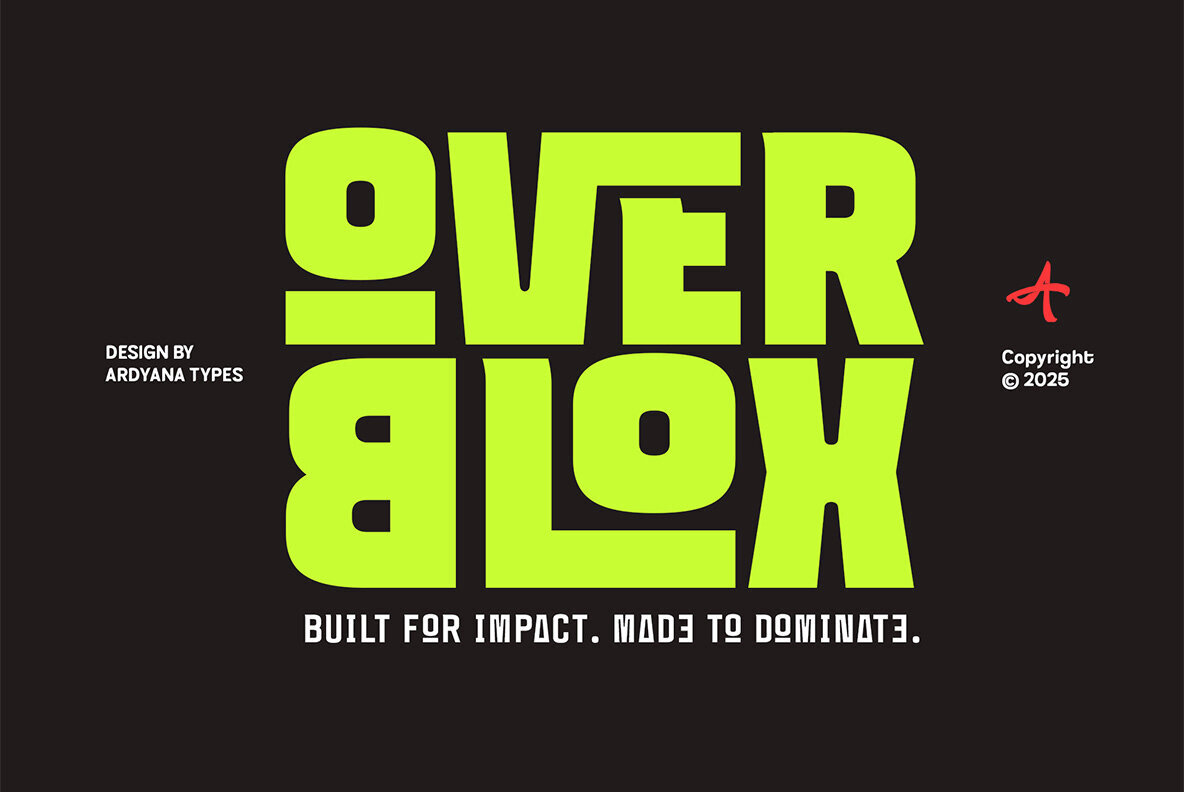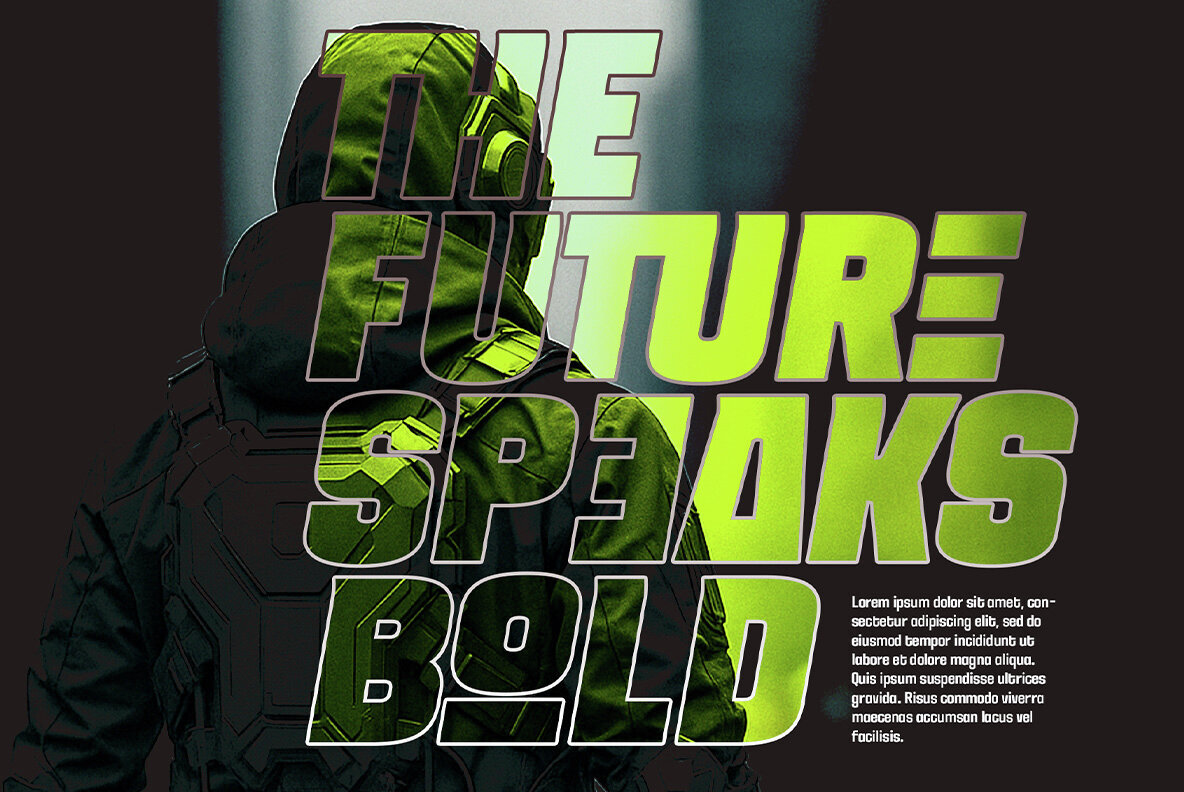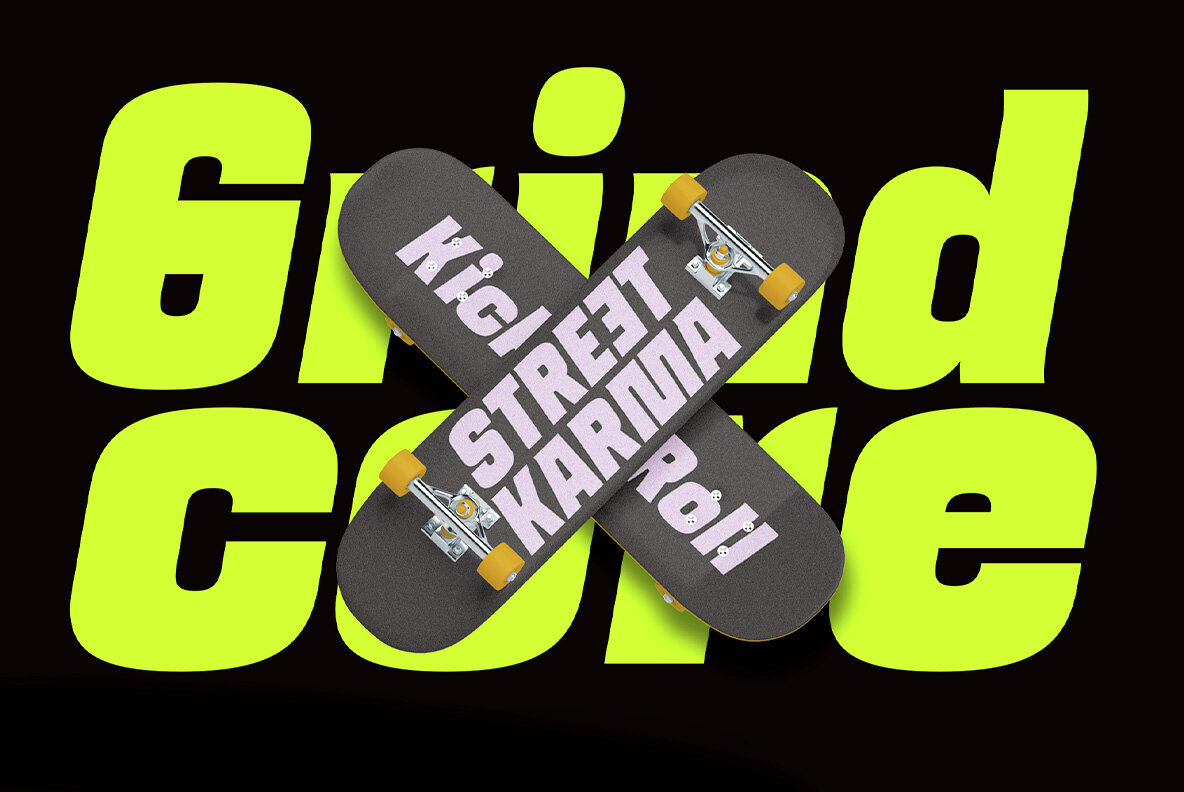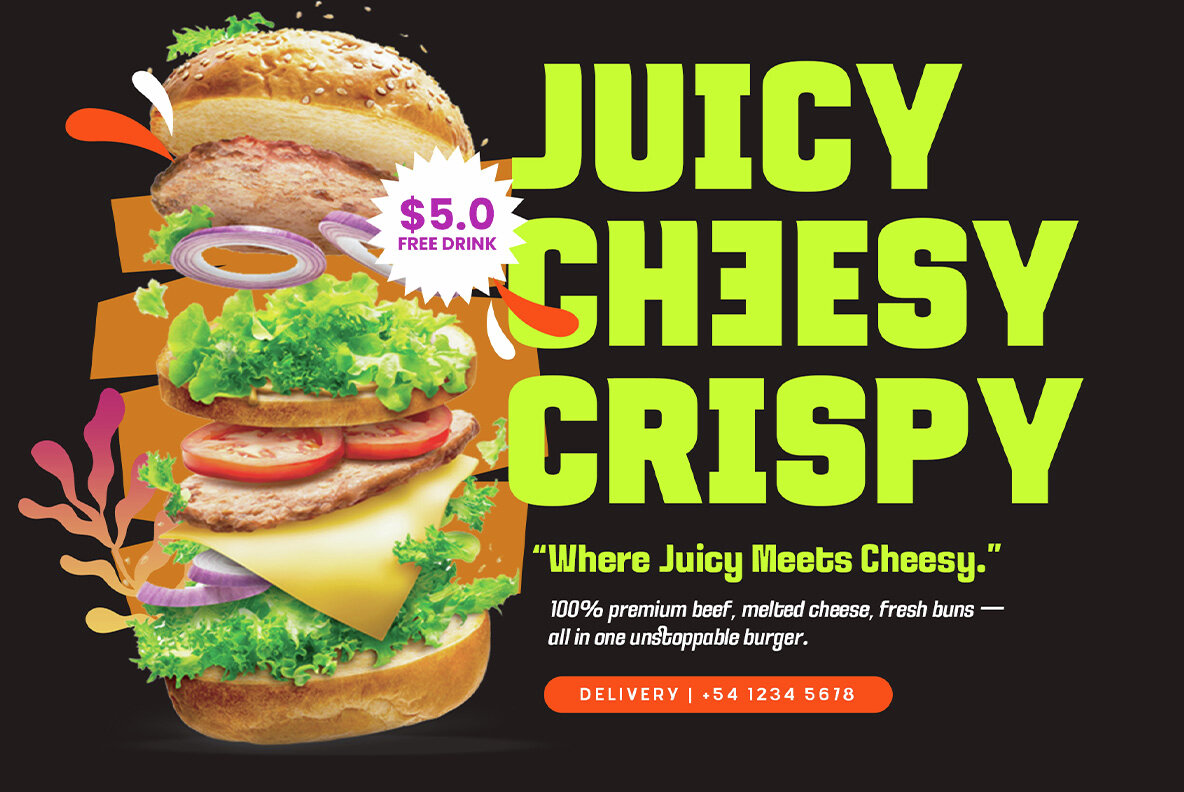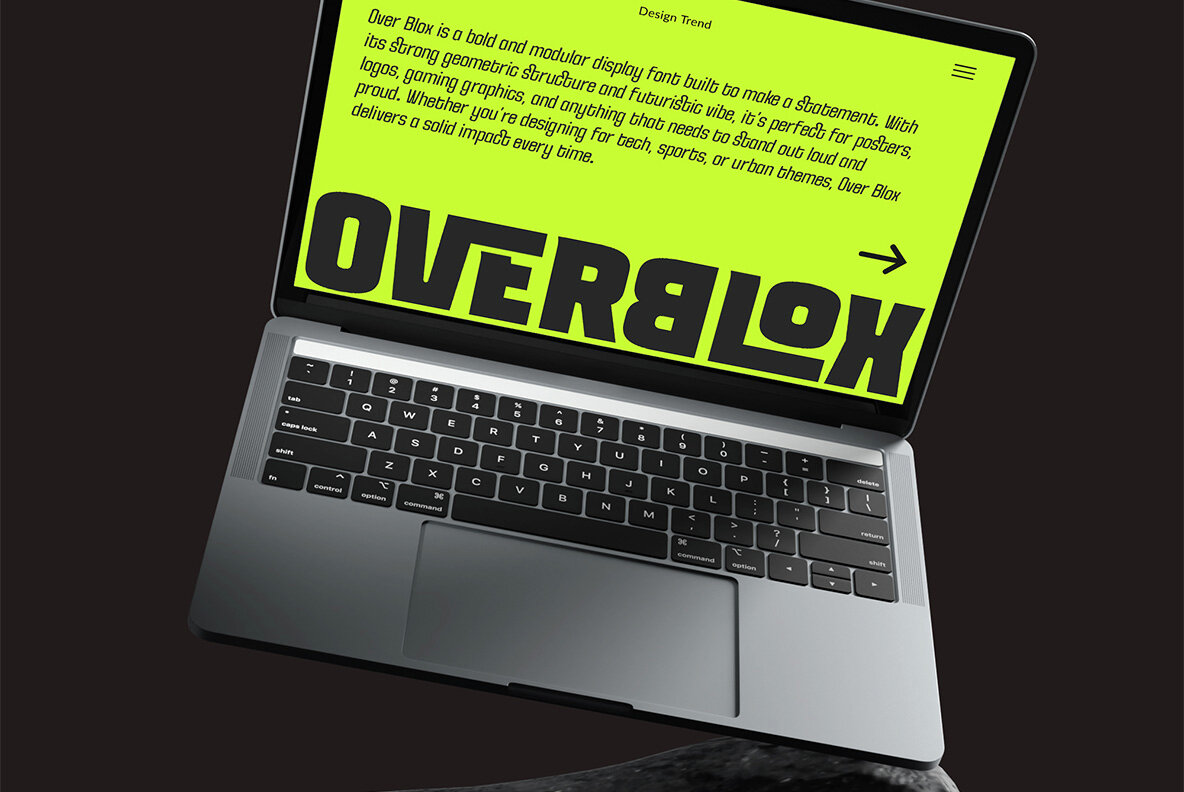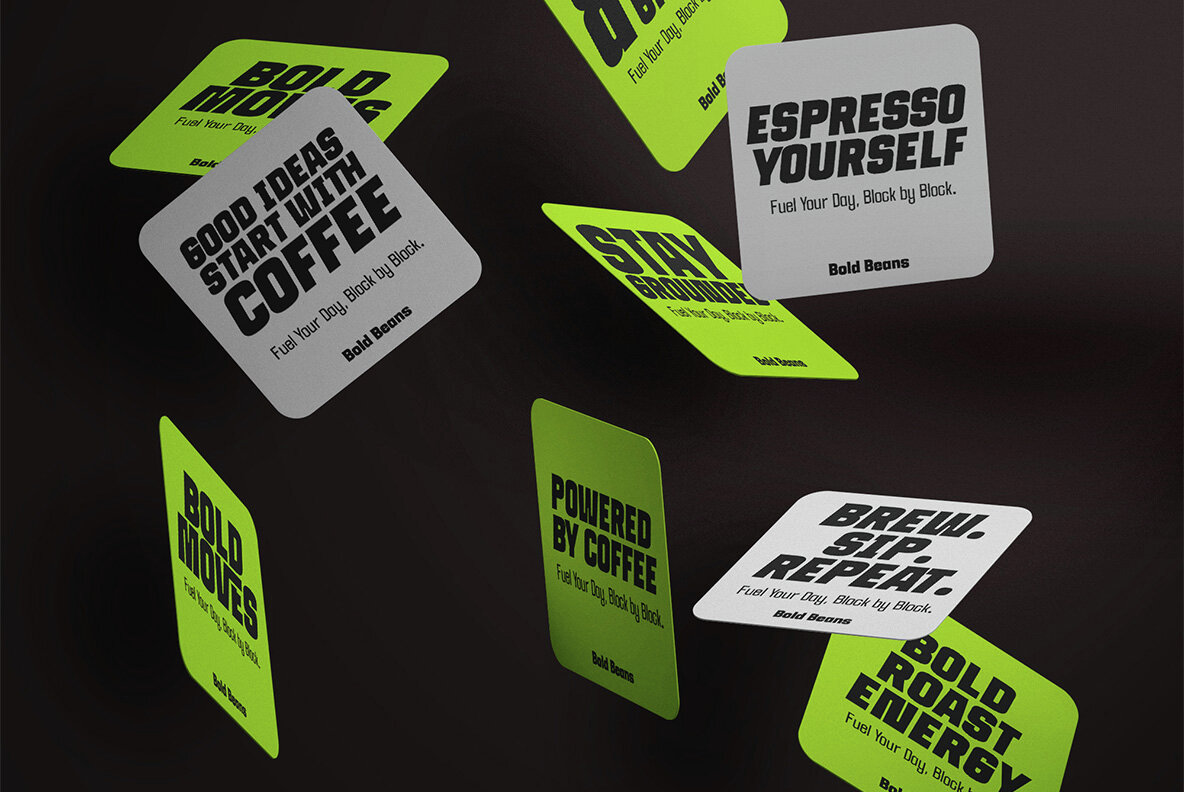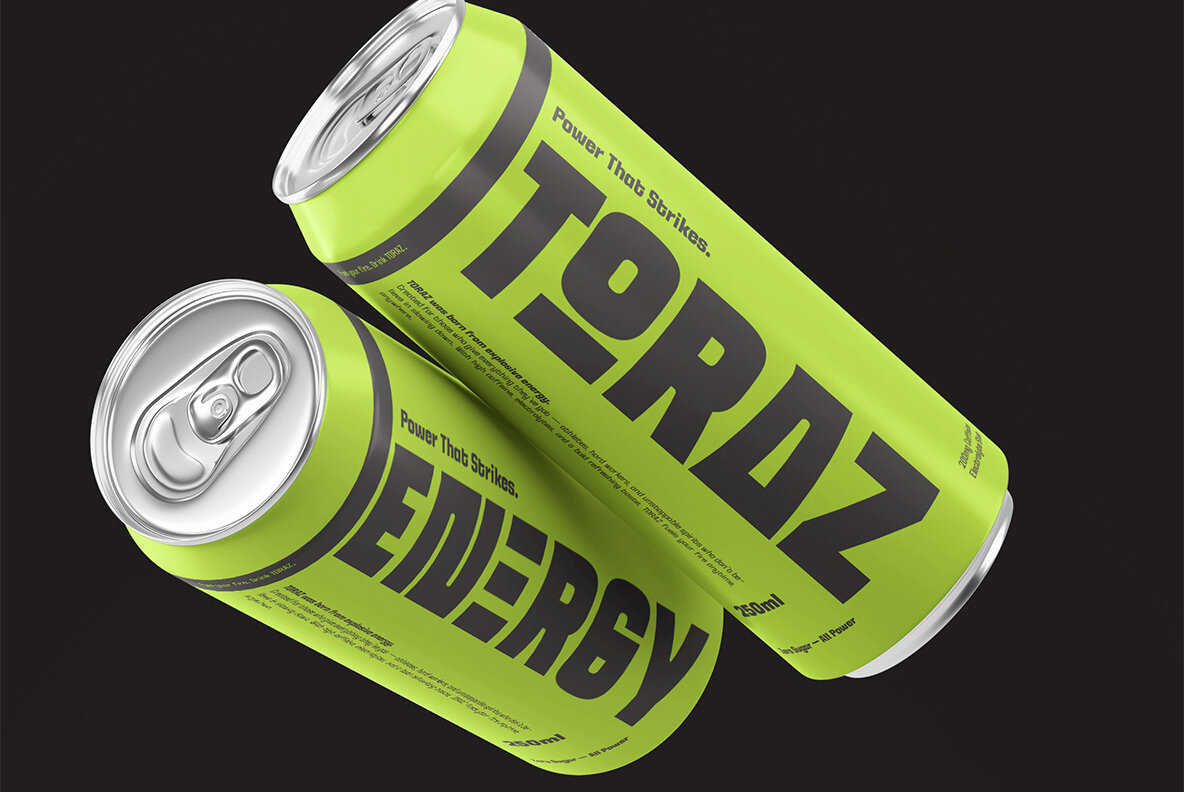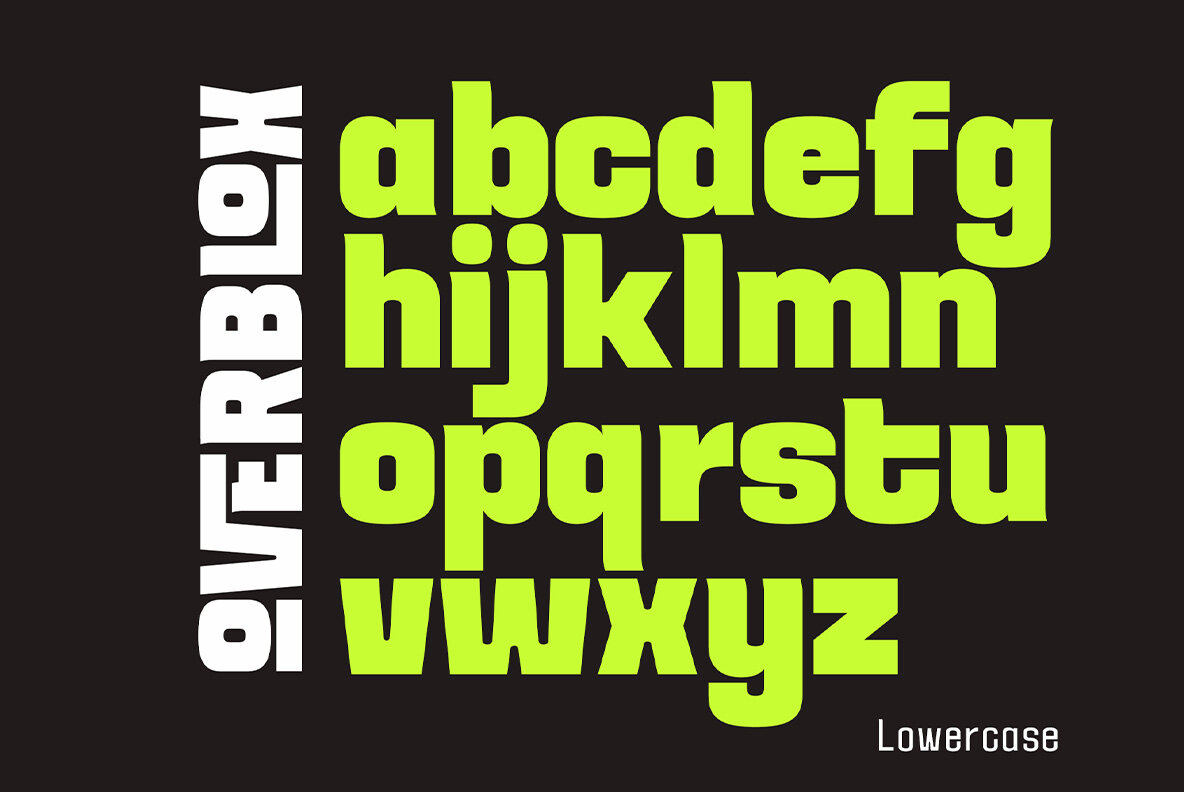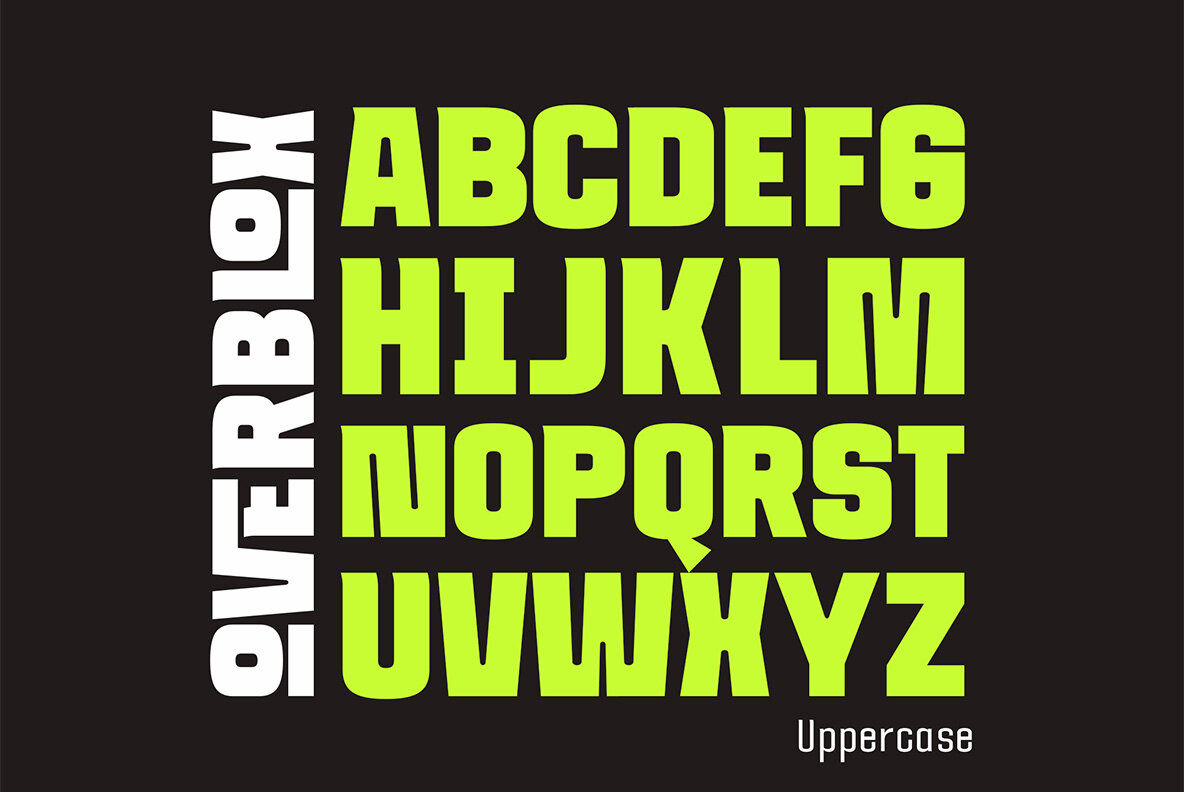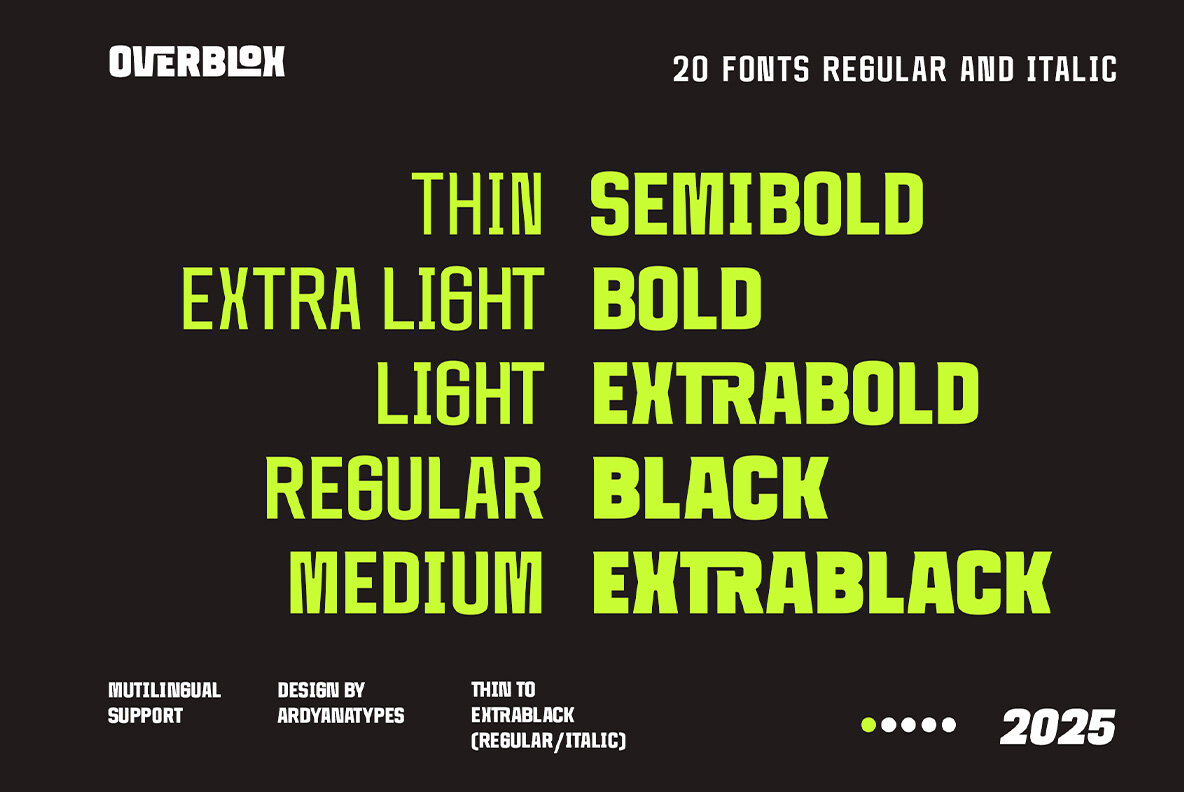
Overblox Font
Overblox is a bold display font designed to make a statement. With 20 versatile styles ranging from thin to extrablack, alongside italic options for select weights, it delivers unmatched flexibility for your creative projects. Its blocky, futuristic design is ideal for streetwear branding, skateboard graphics, concert posters, game titles, and attention-grabbing logos. Perfect for designs that demand attention, Overblox transforms ordinary typography into something extraordinary. Embrace the power of standout compositions and take your creativity global.Unleash Creativity with Overblox